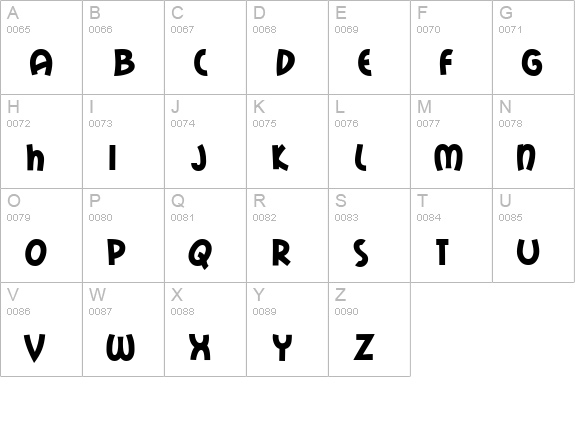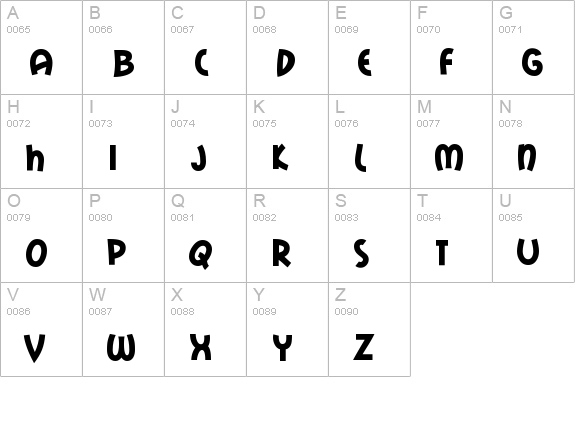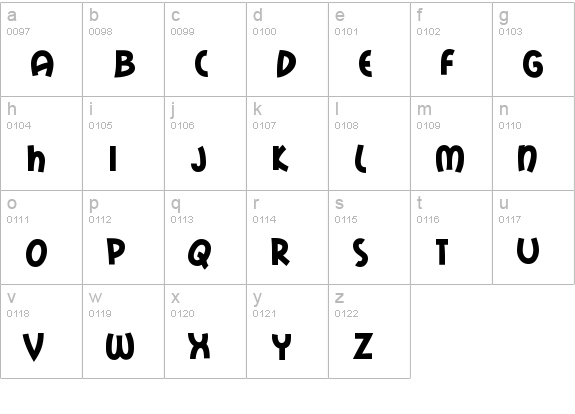
Mail Ray Stuff Font Details
Introducing Mail Ray Stuff font, a captivating typeface that effortlessly combines elegance with a touch of playfulness. This versatile font is perfect for adding a unique and eye-catching touch to any design project. With its clean lines and distinctive curves, Mail Ray Stuff font exudes a sense of sophistication and creativity. But what sets Mail Ray Stuff font apart is not just its stunning aesthetics, but also its accessibility. Yes, you heard it right – this remarkable font is available for free! You can easily download Mail Ray Stuff font at FontsMarket.com, where it is freely available for everyone to enjoy. Whether you are a graphic designer looking to elevate your designs, a blogger in need of a stylish font for your website, or a business owner seeking a font that will make your brand stand out, Mail Ray Stuff font is the perfect choice. Its versatility allows it to be used in a wide range of projects, from logos and branding to invitations and social media graphics. With Mail Ray Stuff font, your designs will effortlessly capture attention and leave a lasting impression. So go ahead and download this amazing font for free at FontsMarket.com. Let your creativity soar and watch as your designs come to life with the unique charm of Mail Ray Stuff font.